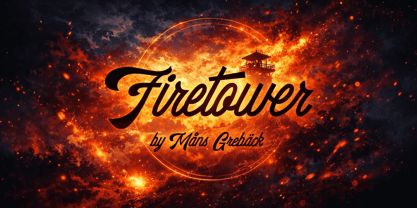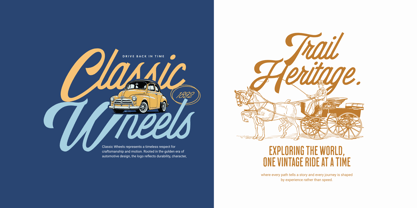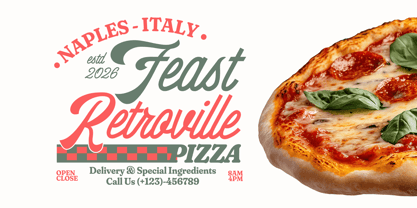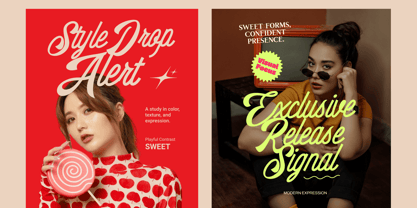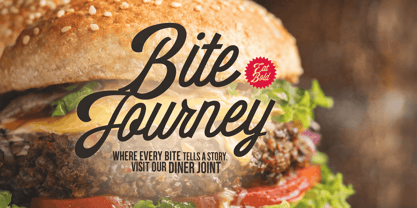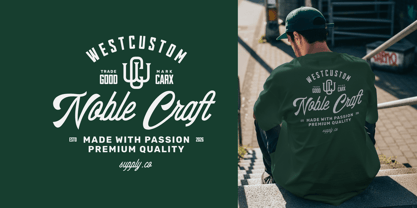
Firetower
Firetower is a bold script with a strong, flowing hand and a steady rhythm. It carries a sense of movement without becoming rushed, balancing confidence with clarity. The letters are drawn with wide strokes and smooth curves, giving the font a warm and expressive presence. Connections are natural and slightly elastic, allowing words to stretch comfortably across a line. The overall feel is dramatic but controlled, with a shape language that feels both familiar and distinctive. The font grew out of an interest in classic sign painting and hand-lettered titles, mixed with a more modern sense of weight and contrast. It is meant to feel crafted and intentional, as if written with care rather than speed. The font is built with advanced functionality and guaranteed top-notch quality, containing stylistic and contextual alternates, ligatures and more automatic and manual features; all to give you full control and customizability. It has extensive lingual support, covering all Latin-based languages, from North Europa to South Africa, from America to South-East Asia. It contains all characters and symbols you'll ever need, including all punctuation and numbers. Designed by Måns Grebäck, Firetower reflects a continued exploration of expressive scripts that remain readable and practical. The goal is not to overpower the message, but to give it a strong voice and a clear tone.